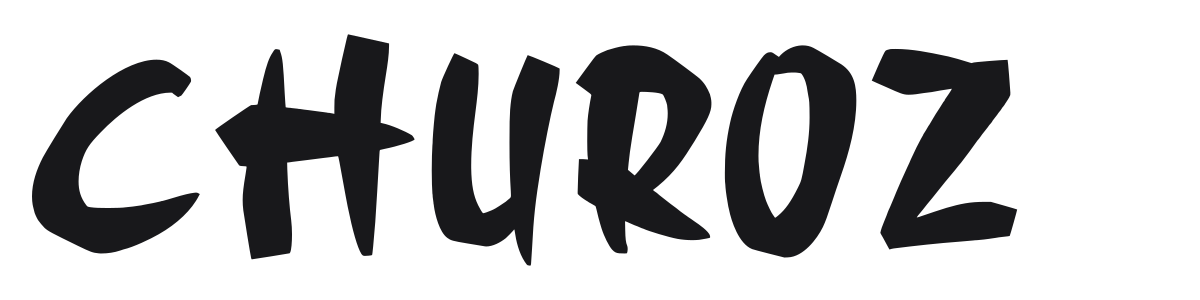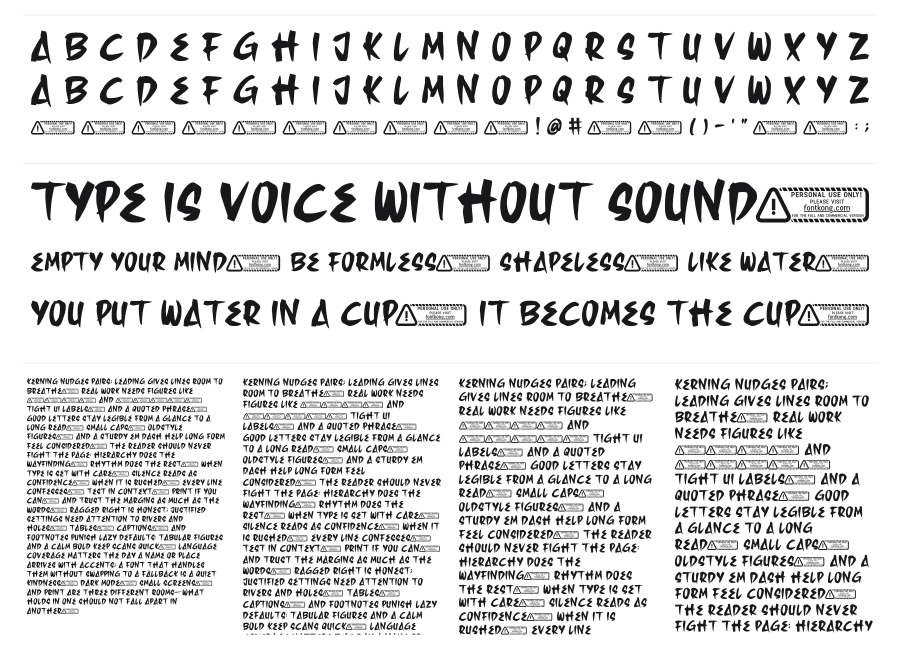
Churoz
Churoz is a heavy brush display font with raw, spontaneous energy and thick strokes that feel like they were dashed off with a wide marker. Rough terminals and irregular edges keep it from feeling too polished, giving it an authentic street-art quality. It hits hard at large sizes on posters, apparel, and bold brand identities.